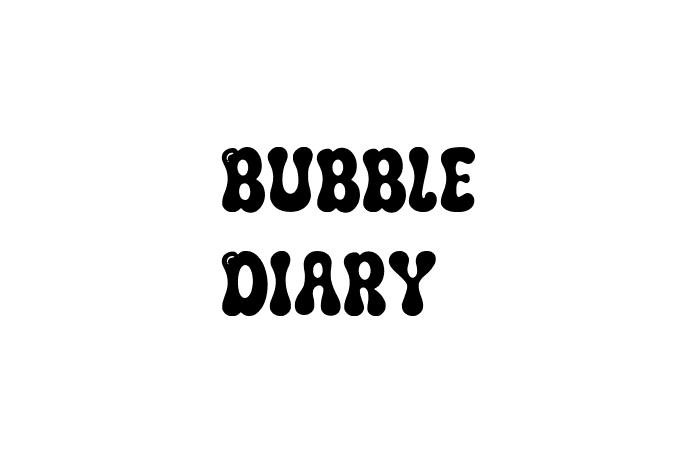
Gummy Candy Font
Gummy Candy is a Fun Cartoon font that has fancy look characters. this font is suitable for such as: logos, branding projects, homeware designs, product packaging, mugs, quotes, posters, shopping bags, t-shirts, ebook covers designs, movie title design, and more.